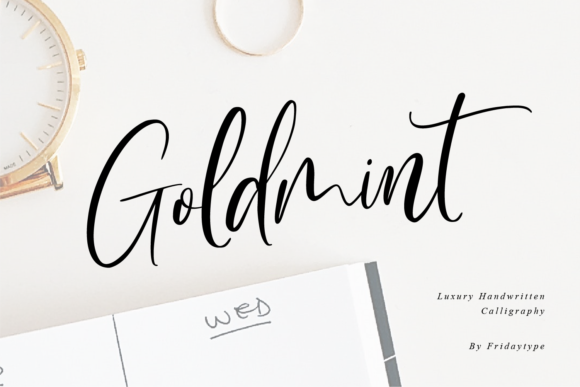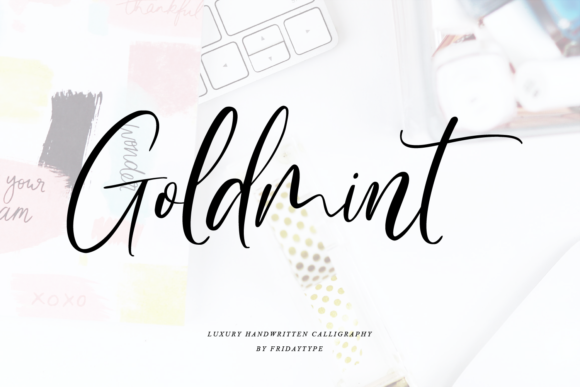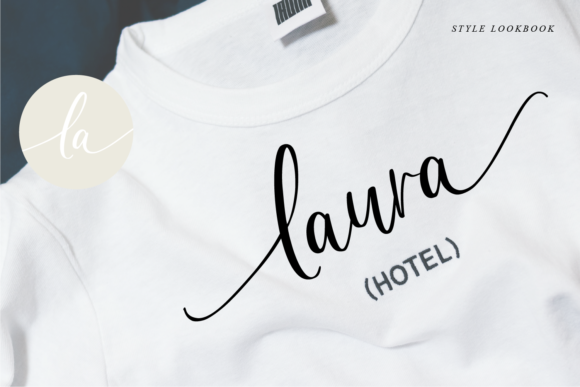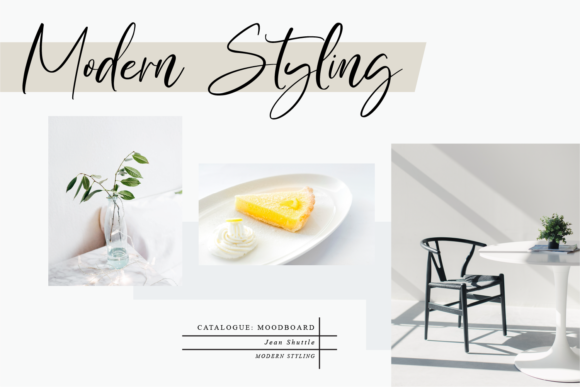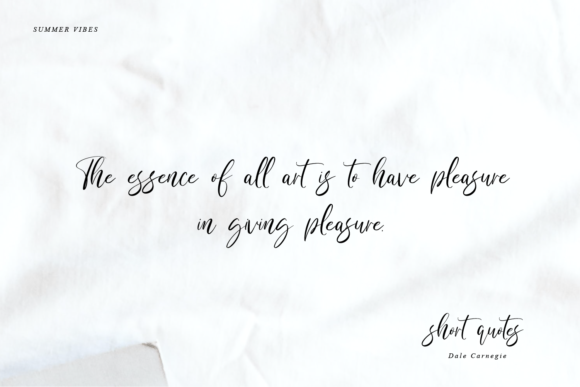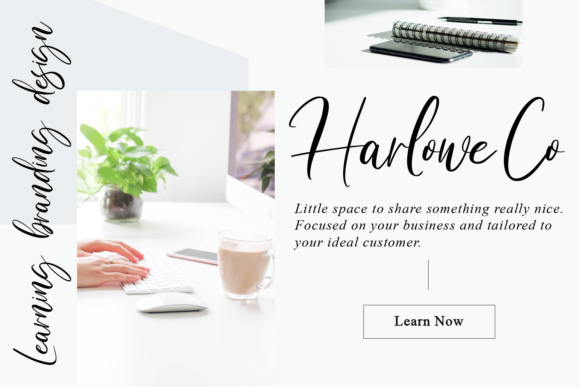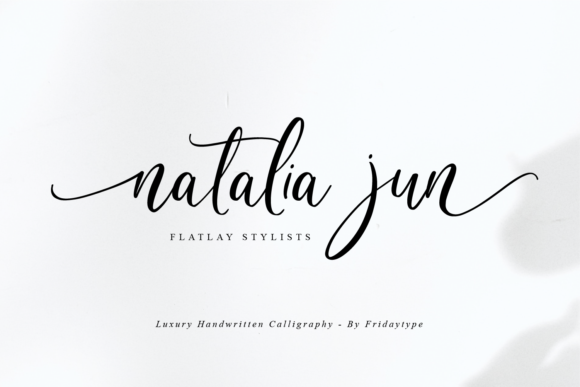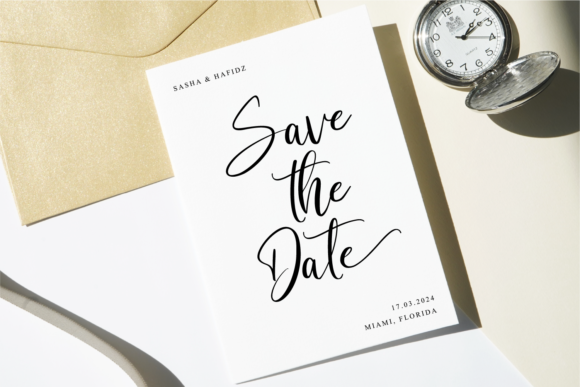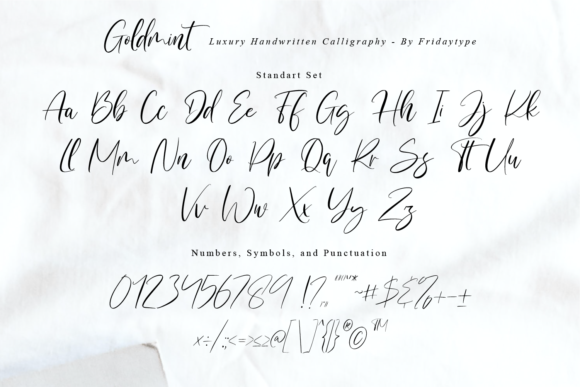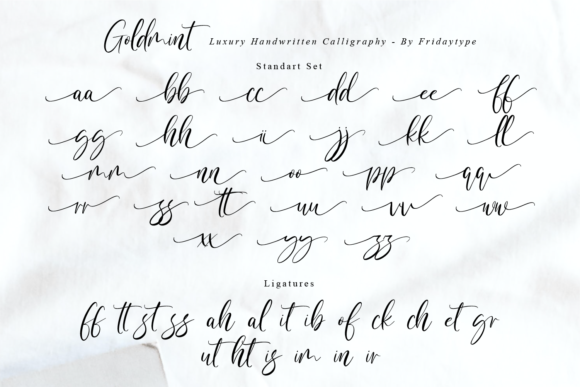
Golmint Font
About Golmint Font
Golmint stands out as a stylish and modern calligraphy font, bringing a unique flair to your design projects. Characterized by its contemporary aesthetic, this font is designed to add a touch of sophistication to various creative endeavors. Notably, Golmint comes PUA encoded, allowing for easy access to its extensive collection of glyphs and swashes.
The font’s distinctive charm lies in its contemporary and stylish design, making it well-suited for a range of applications. Whether used in branding, invitations, digital or print materials, Golmint elevates the visual appeal of your content with its elegant and dynamic script.
The PUA encoding feature enhances user accessibility, enabling seamless integration of a variety of glyphs and swashes. This user-friendly attribute empowers designers to effortlessly incorporate decorative elements, fostering a creative and personalized touch to their projects.
In summary, Golmint is more than just a font; it’s a statement piece that brings a modern and stylish touch to your designs. With its PUA encoding, accessing its full range of glyphs and swashes becomes a breeze, allowing for a customizable and visually engaging design experience across different creative applications.